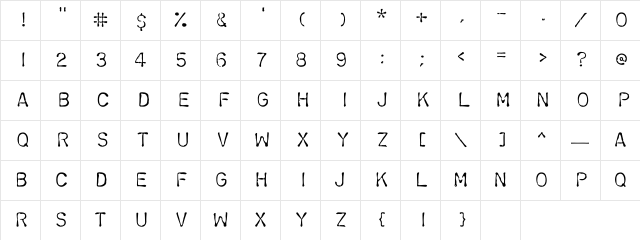
Chromosome Light Regular Free Font
Chromosome Light Regular
Design Context for Chromosome Light
Chromosome Light is a composed and adaptable typeface that performs quietly and consistently across a wide range of design contexts. Its slender proportions lend an understated elegance to any composition.